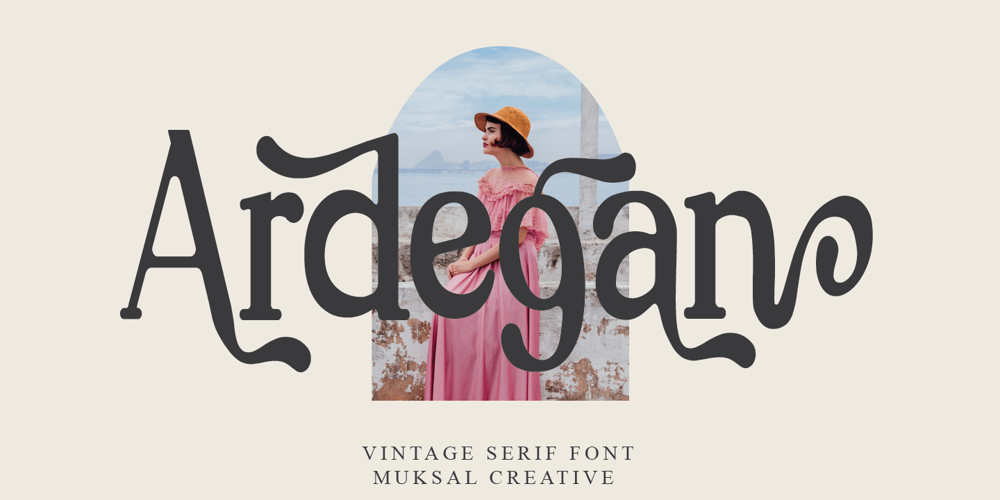
Ardegan Font Family was designed by Muksalmina and published by Muksal Creatives. Ardegan contains 1 styles and family package options. Ardegan is a vintage and elegant serif font. Looks cool on various designs that require style such as wedding invitations, greeting cards, logos, fashion, photography, and so on. Ardegan The scenes are PUA coded which means you can access all the glyphs and sweeps with ease!